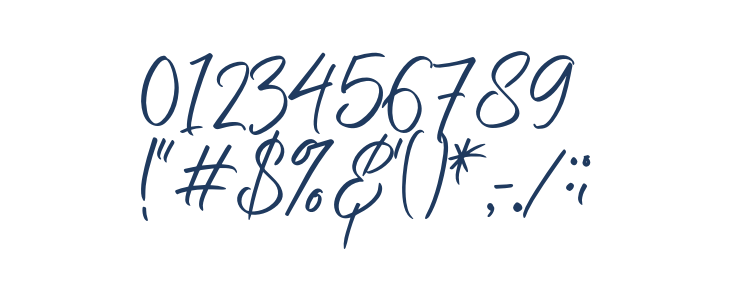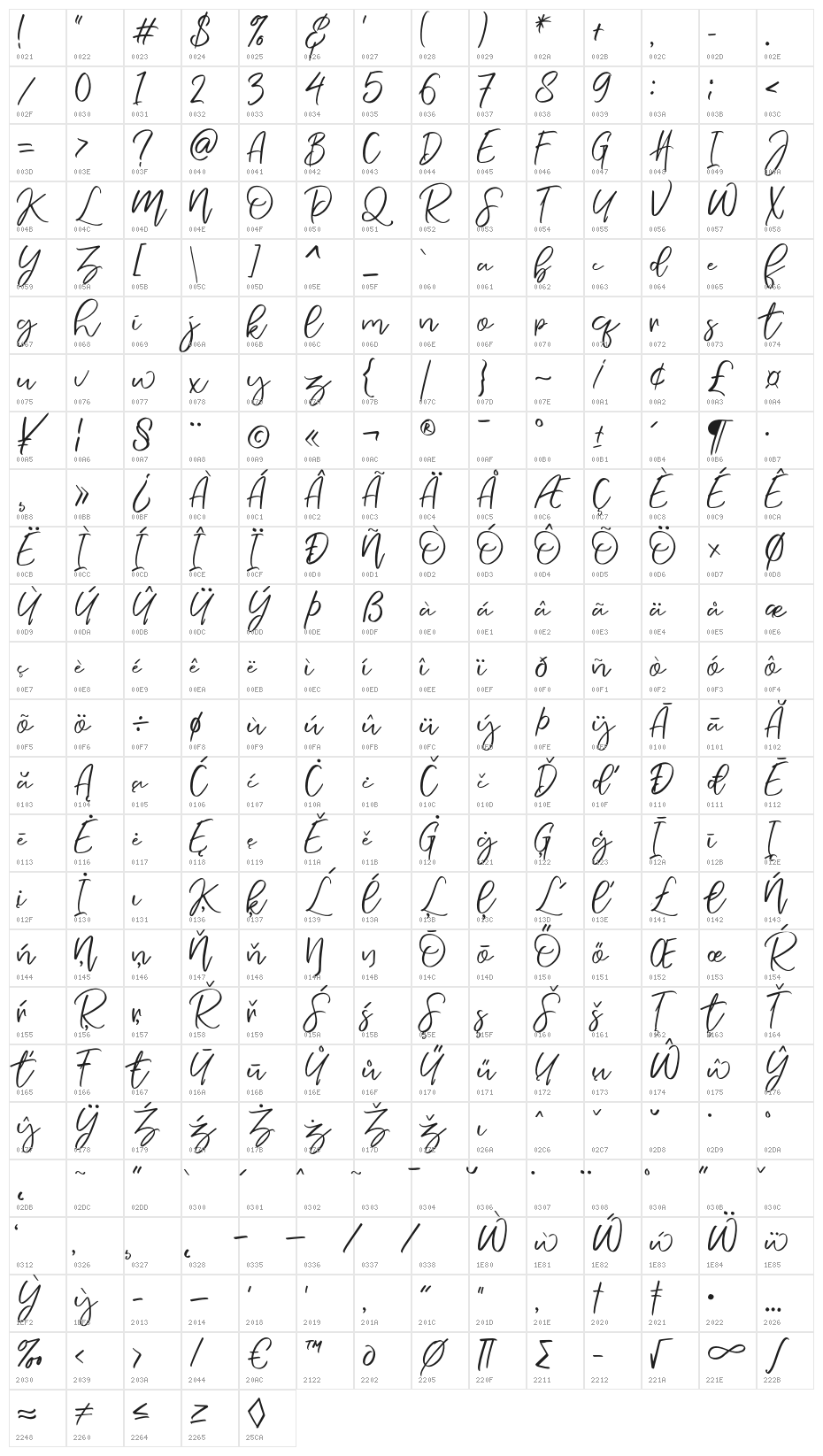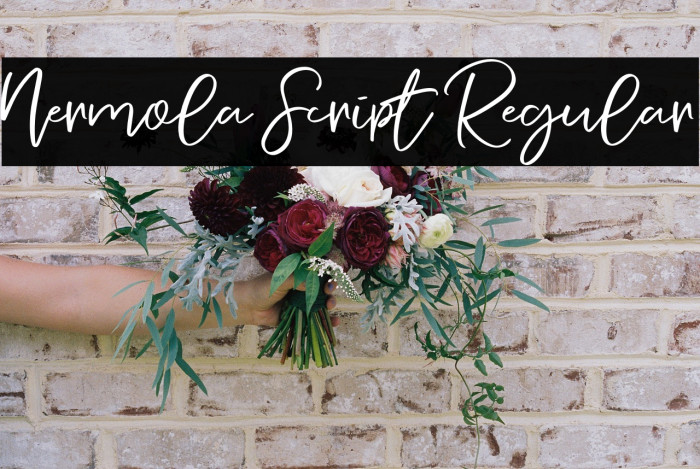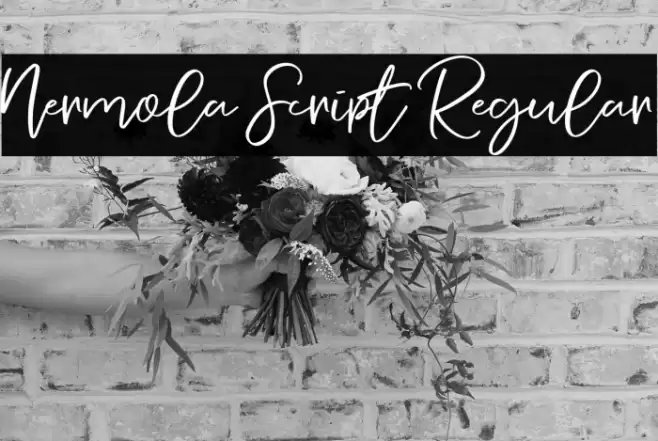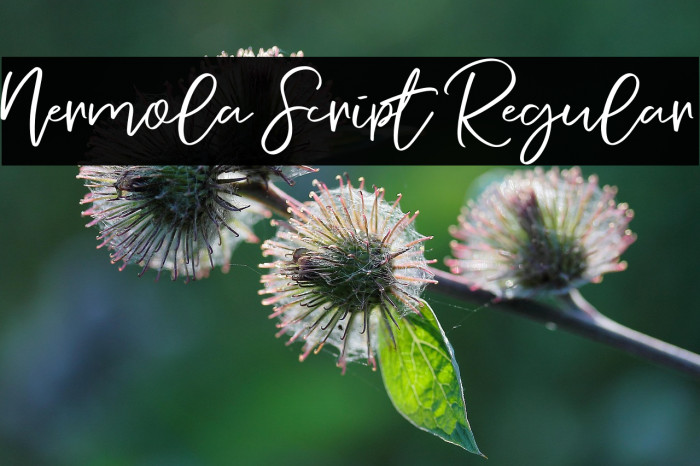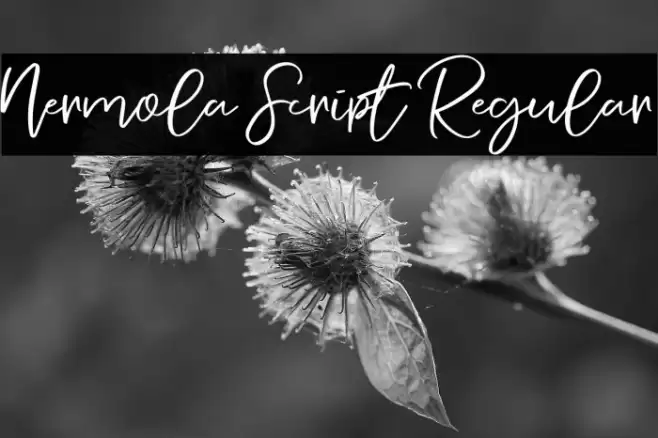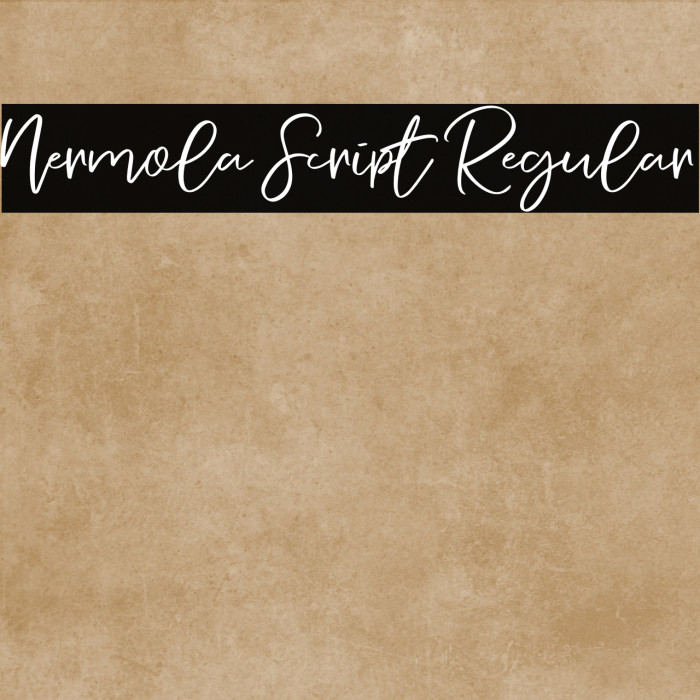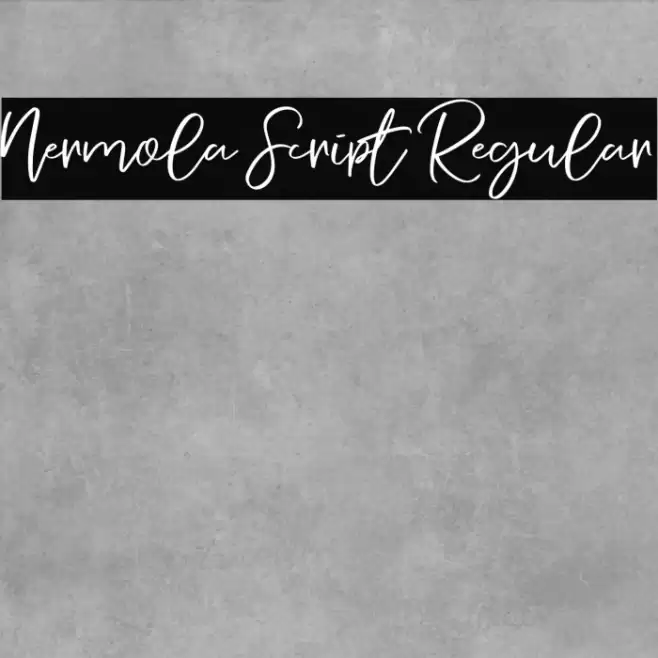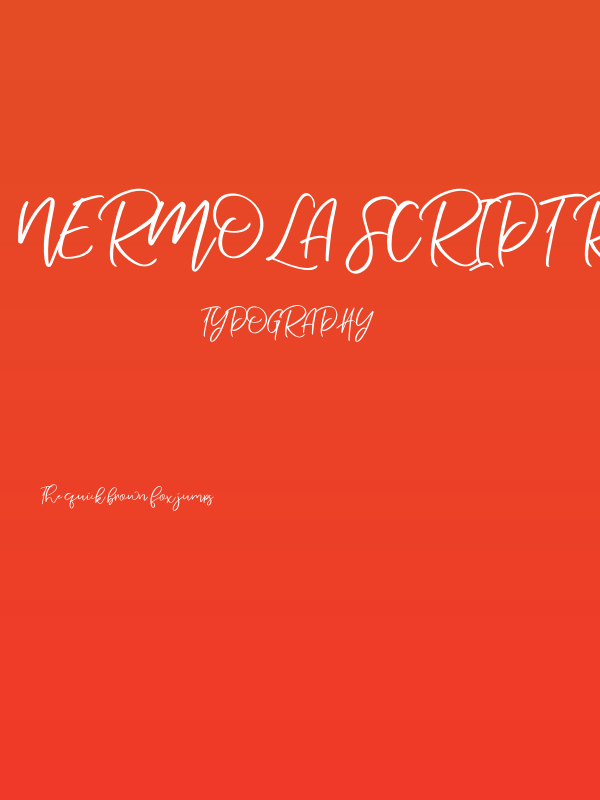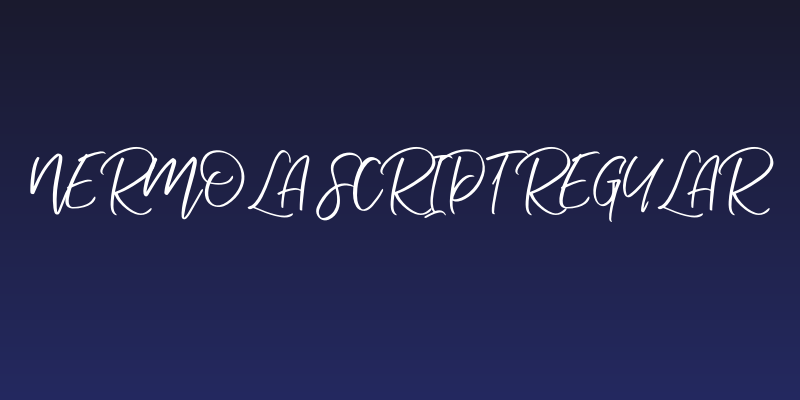
Nermola Script Regular Font
Nermola Script Regular Description
This font features a lively and flowing script style, characterized by its elegant, cursive letterforms that mimic natural handwriting. The strokes are smooth and connected, with a slight slant that adds to its dynamic appearance. Uppercase letters are bold and prominent, while lowercase letters maintain a consistent flow, enhancing readability. The numerals and special characters are crafted with the same attention to detail, ensuring a cohesive look across all text. This font exudes a sense of sophistication and creativity, making it ideal for projects that require a personal touch.
| Use Case | Logos, Invitations, Personal projects |
| Proposed Projects | Ideal for wedding invitations, greeting cards, branding, and personal projects that require a handwritten touch. |